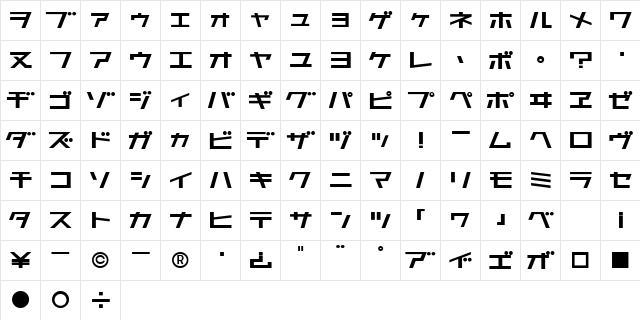
AstraKfsb07MediumO Regular Font Preview
AstraKfsb07MediumO Regular
AstraKfsb07MediumO Regular Font Details
Design Context for AstraKfsb07MediumO Typeface
AstraKfsb07MediumO takes a measured approach to typography — its balanced proportions and neutral character make it a reliable workhorse for both digital and print work.